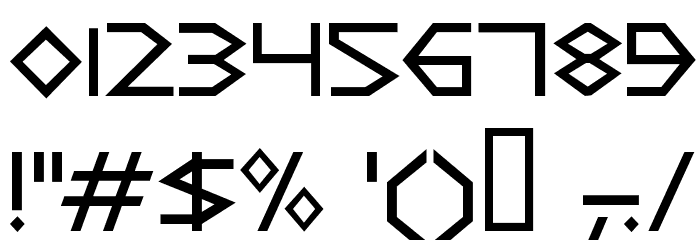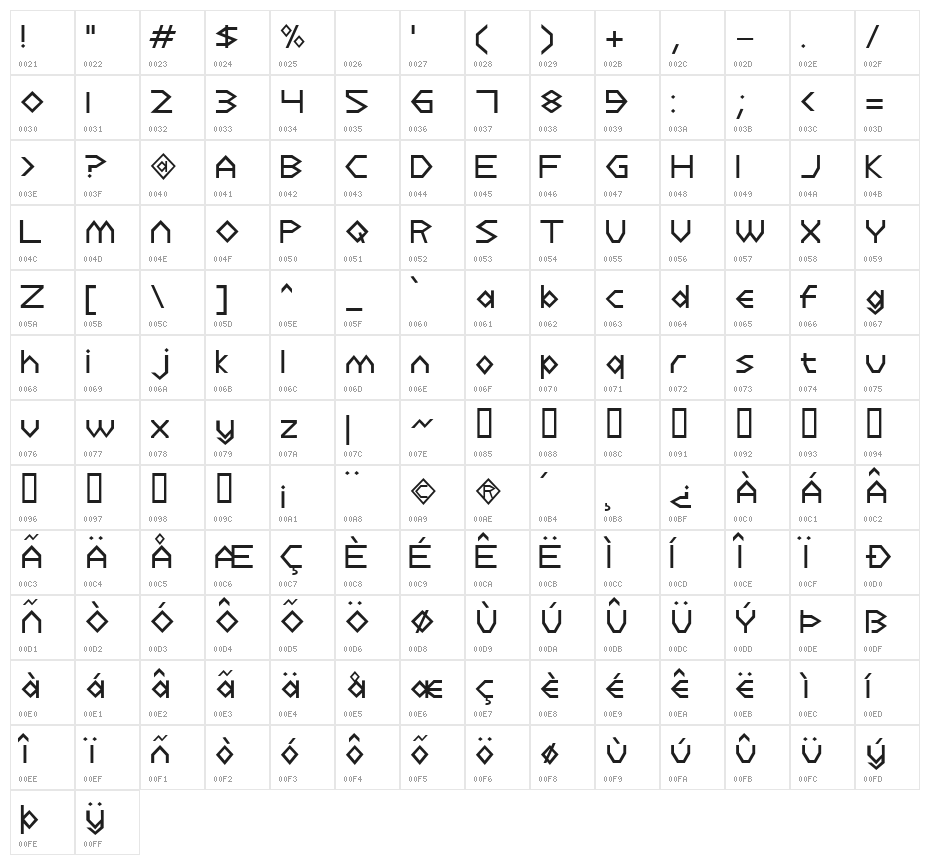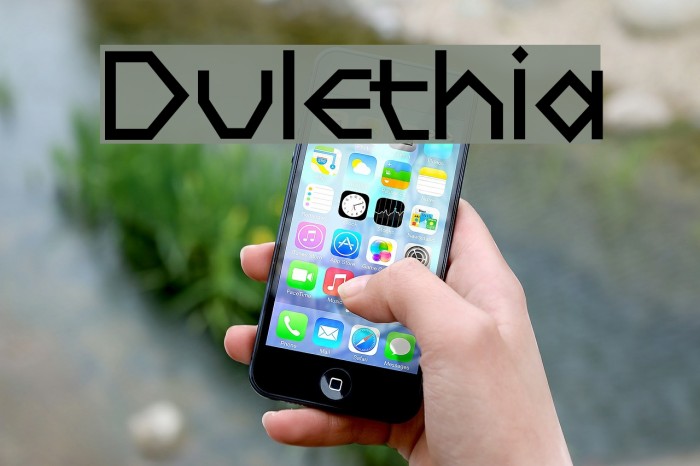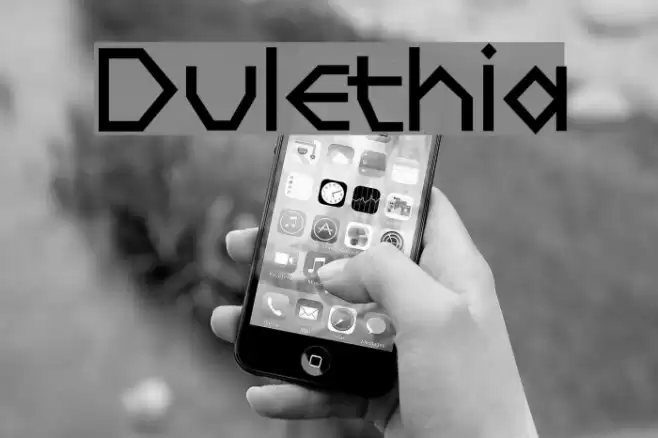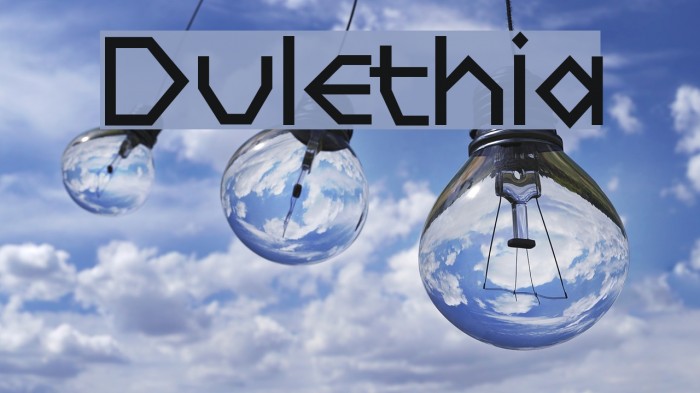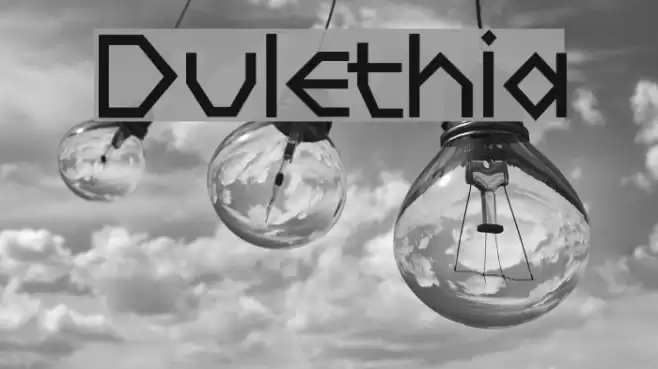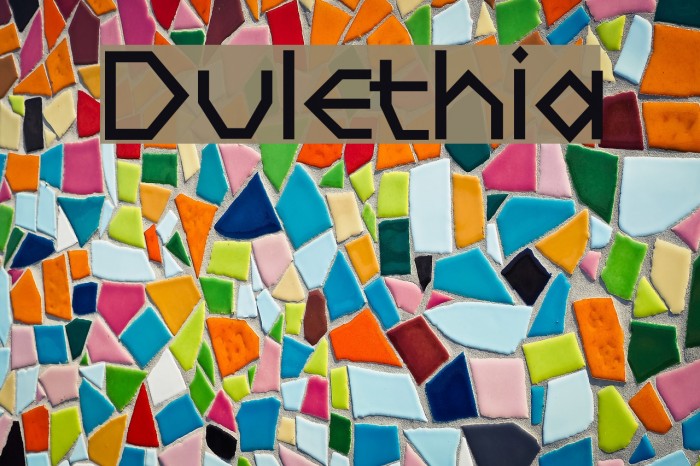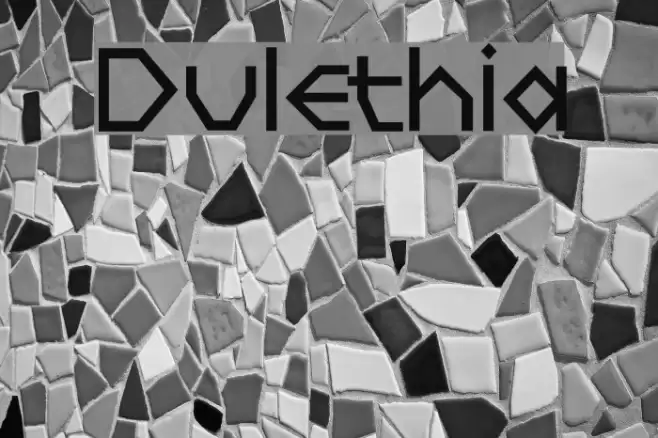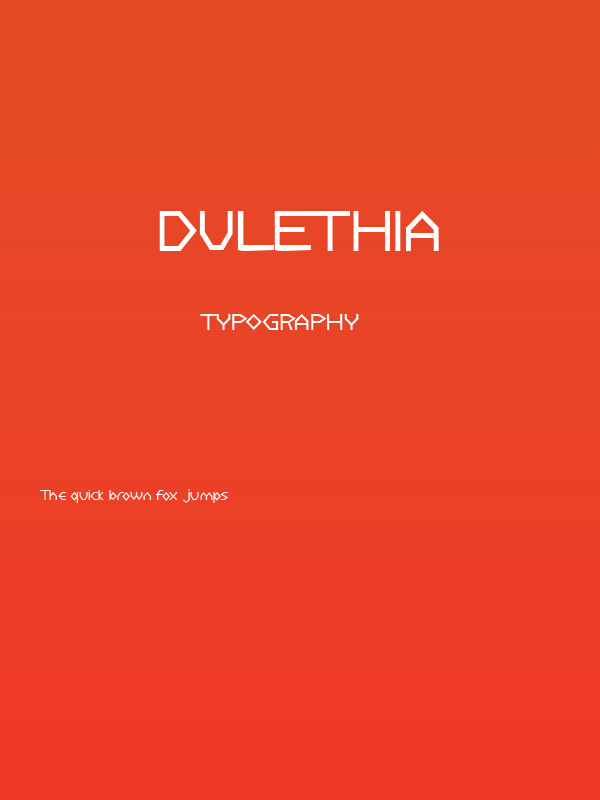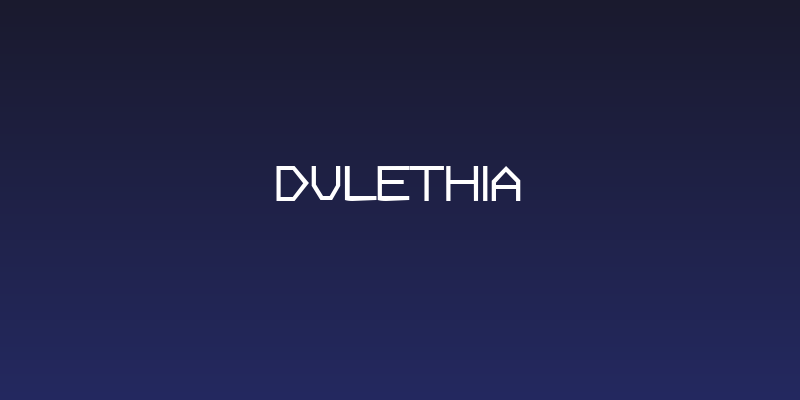
Dulethia Font
Dulethia Description
This font features a geometric and angular design, characterized by its sharp edges and bold lines. The uppercase and lowercase letters maintain a consistent style, with a futuristic and digital aesthetic. The numbers and special characters follow the same angular theme, providing a cohesive look across all characters. The font's unique style makes it stand out, with a modern and tech-inspired feel that is both eye-catching and distinctive.